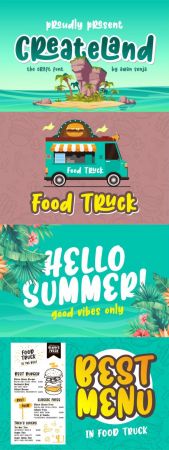
Createland is a bold display font, carefully handcrafted to become a true favorite. Its casual charm makes it appear wonderfully down-to-earth, readable and, ultimately, incredibly versatile. Createland will look outstanding in any context, whether it’s being used on busy backgrounds or as a standalone headline!